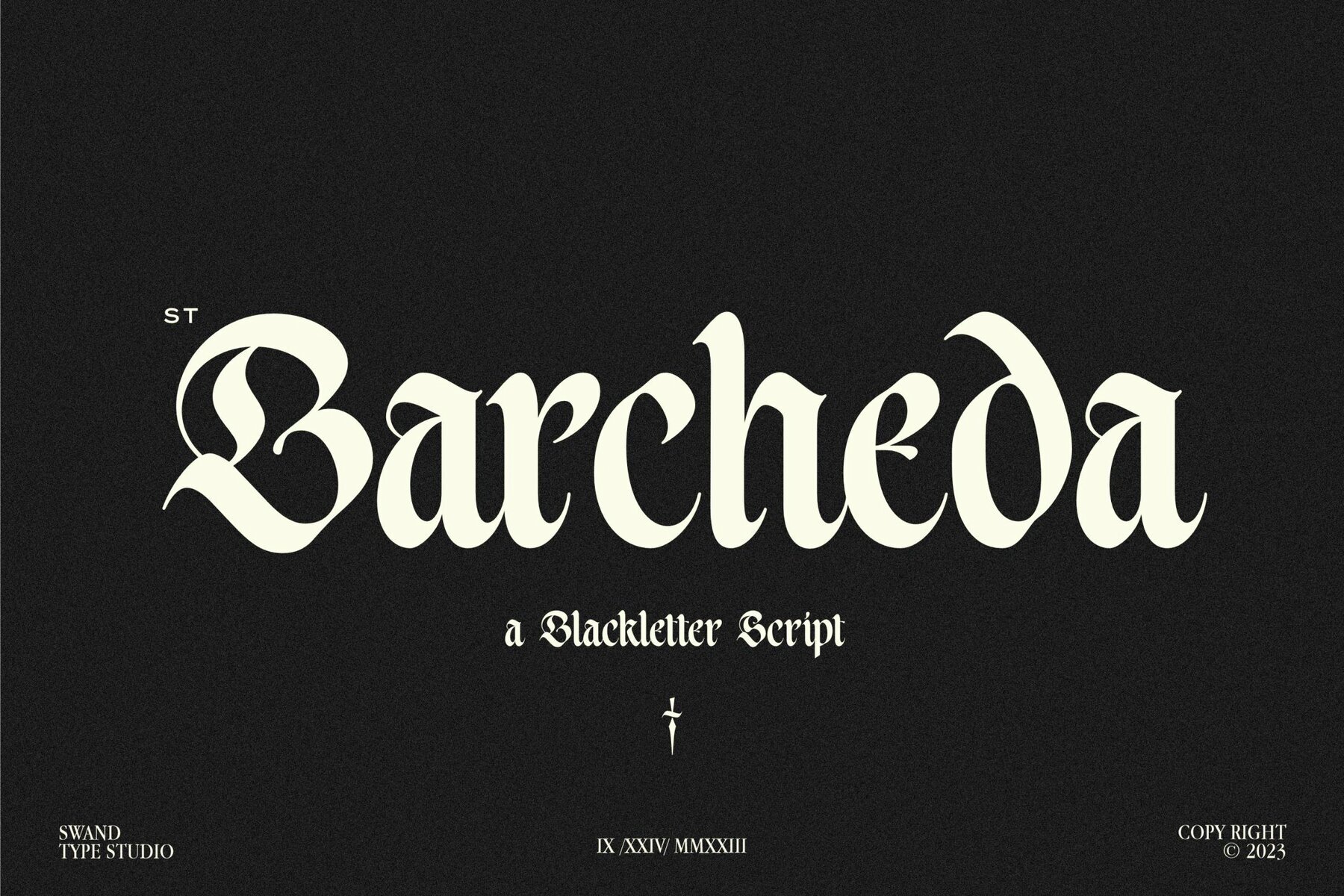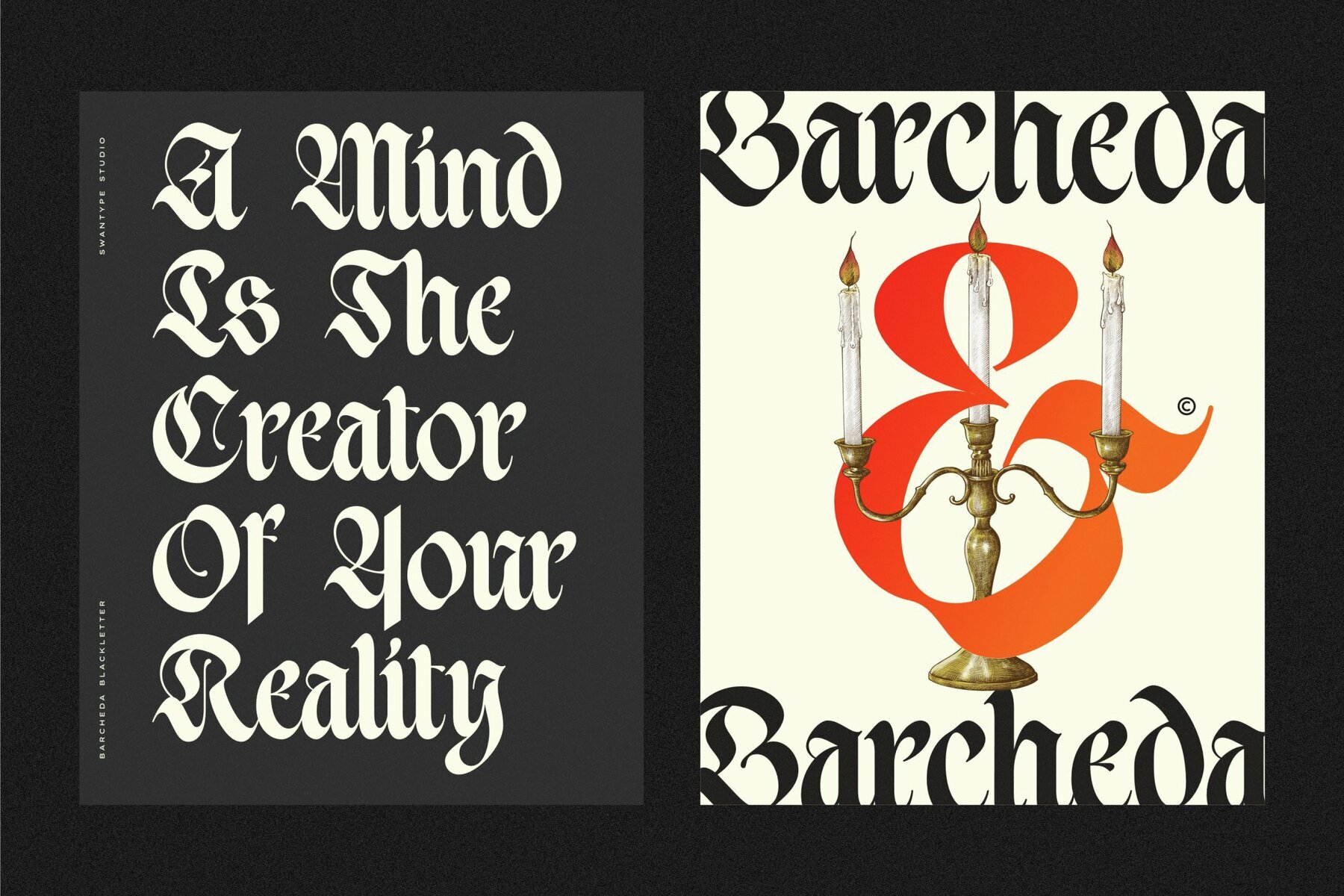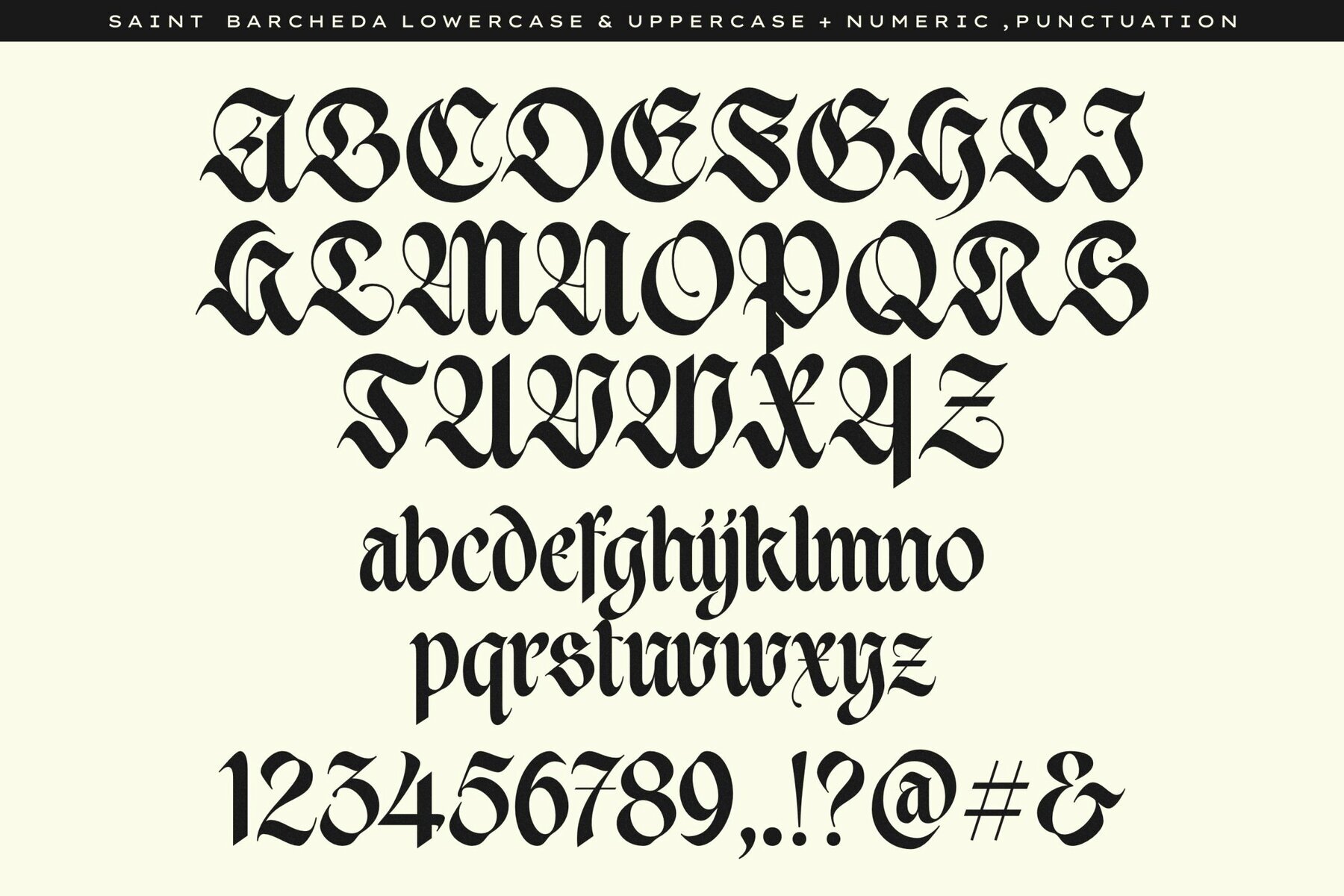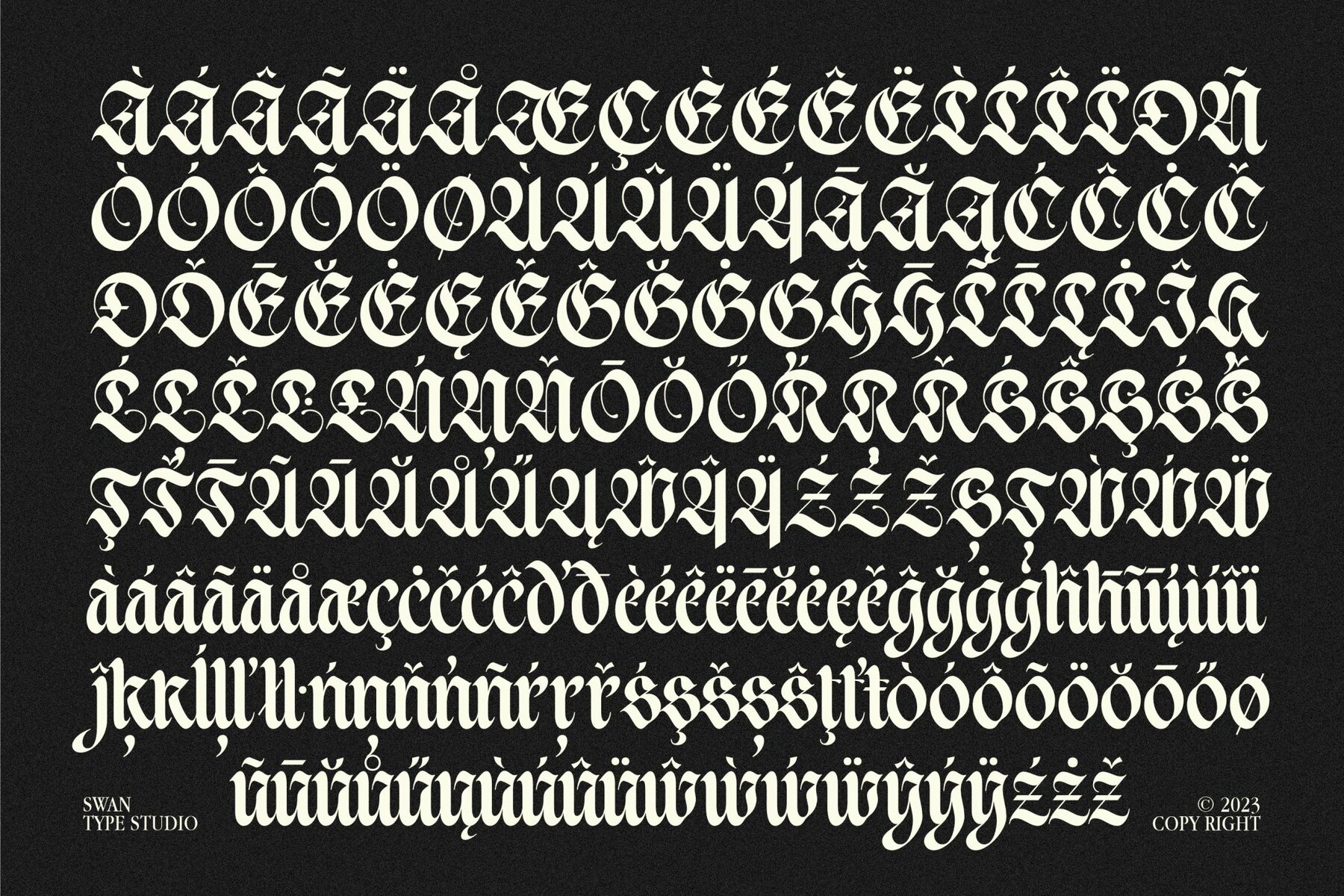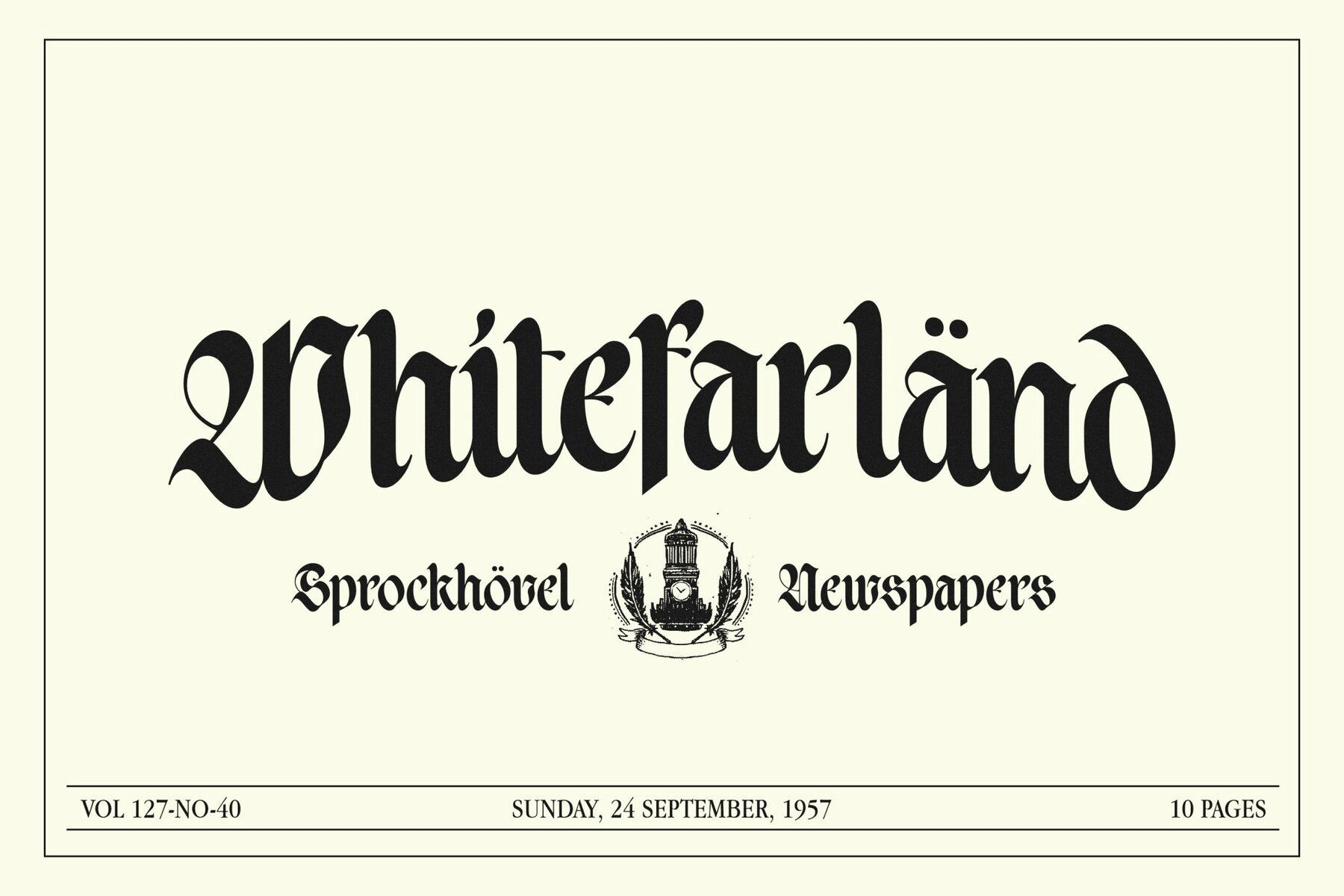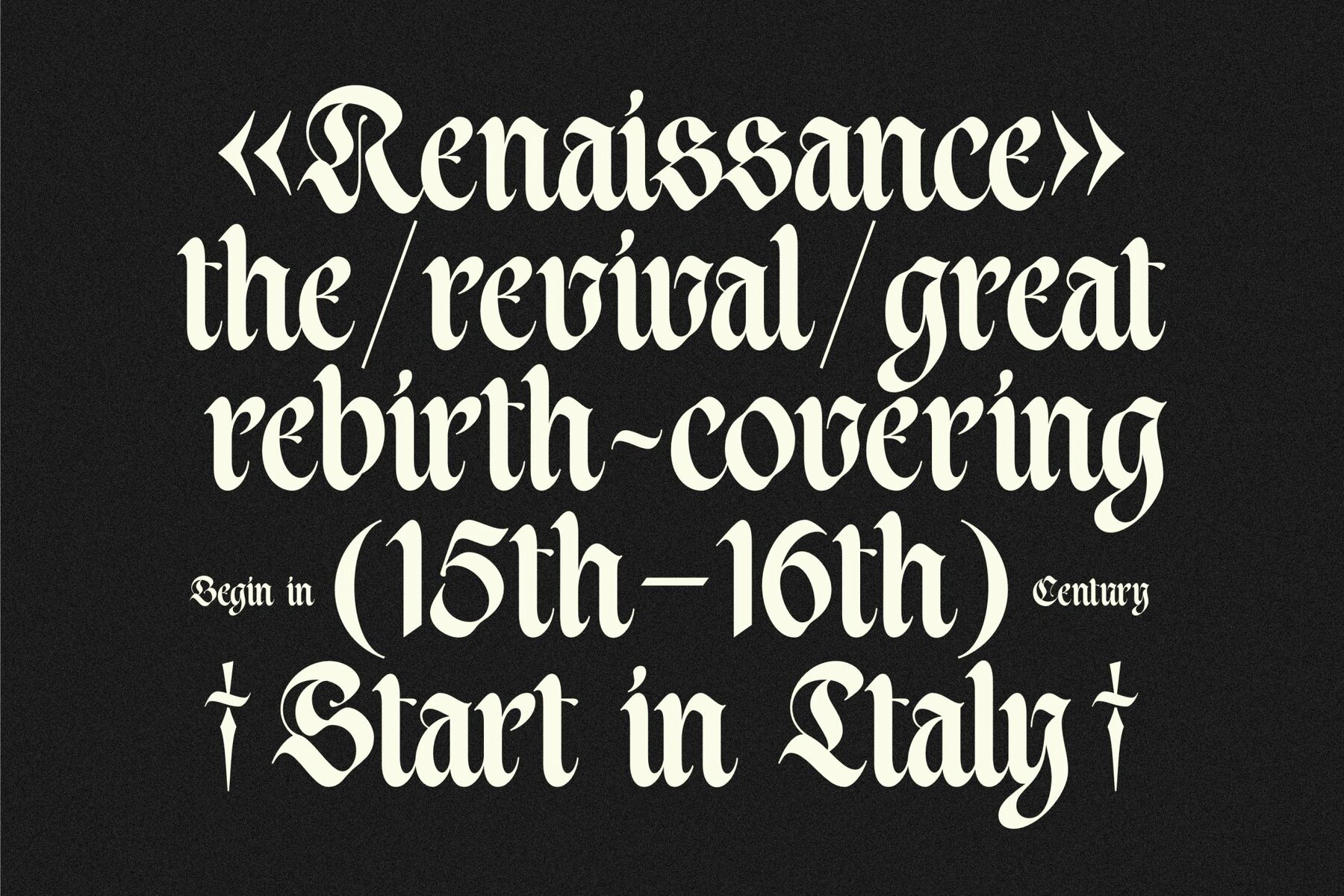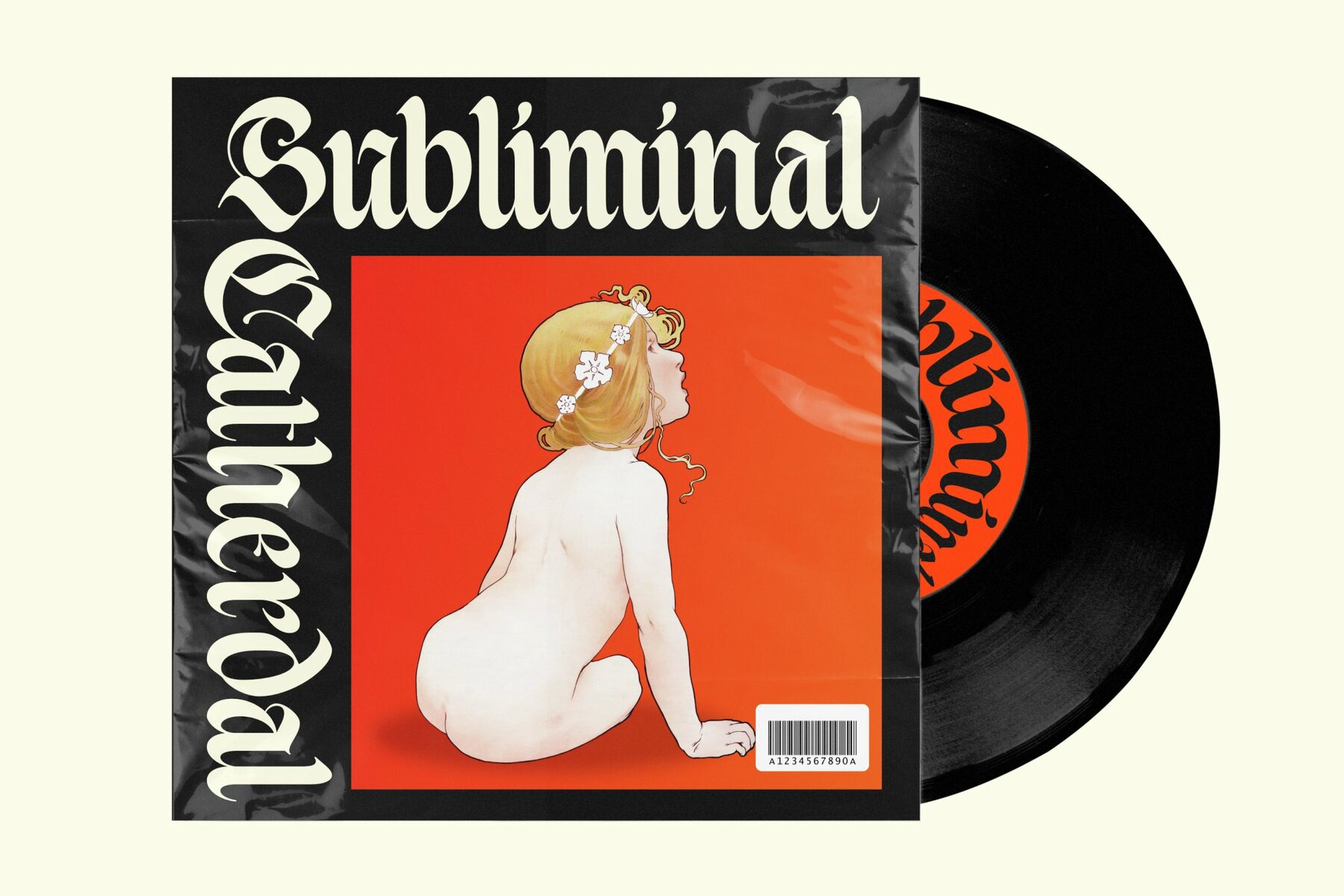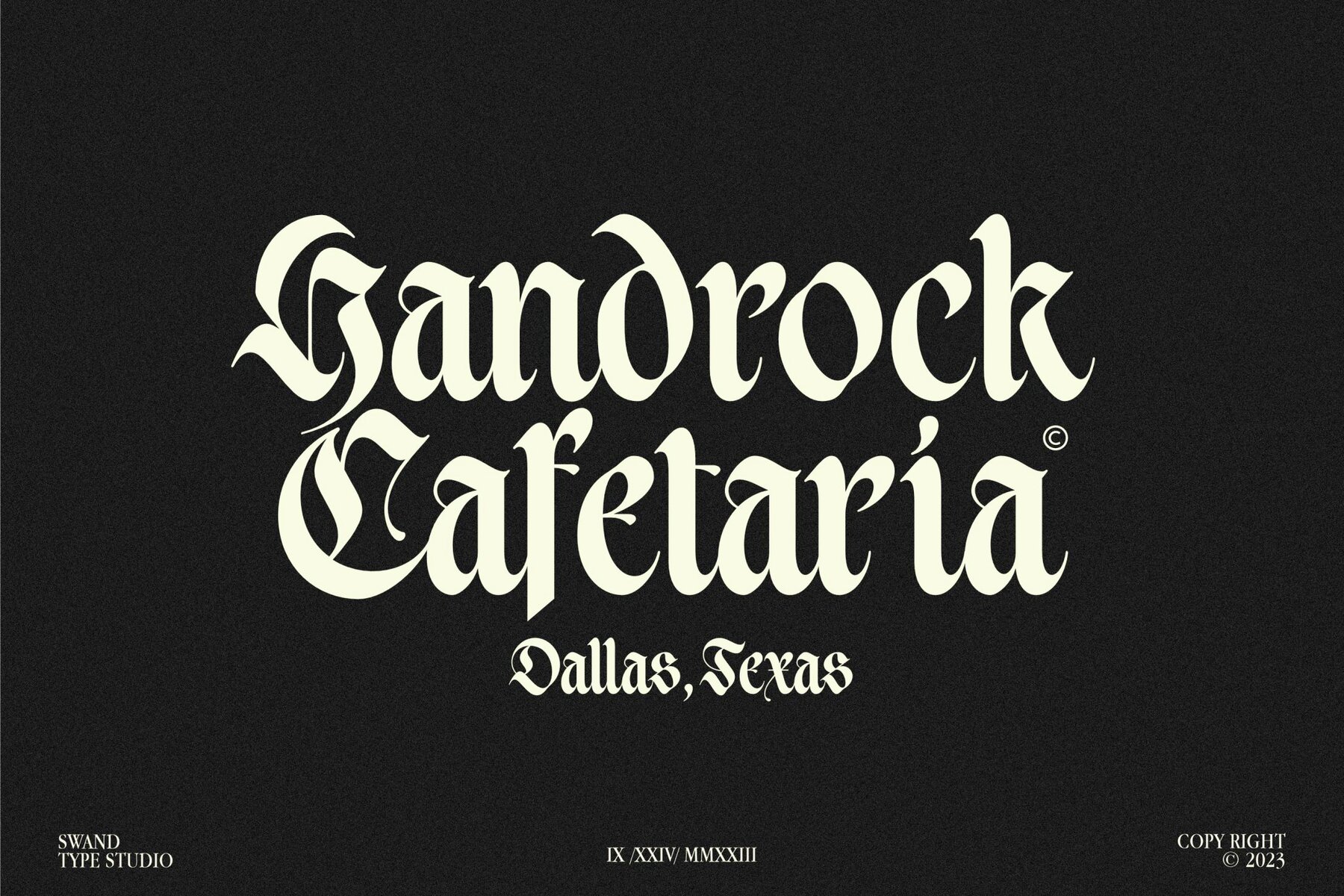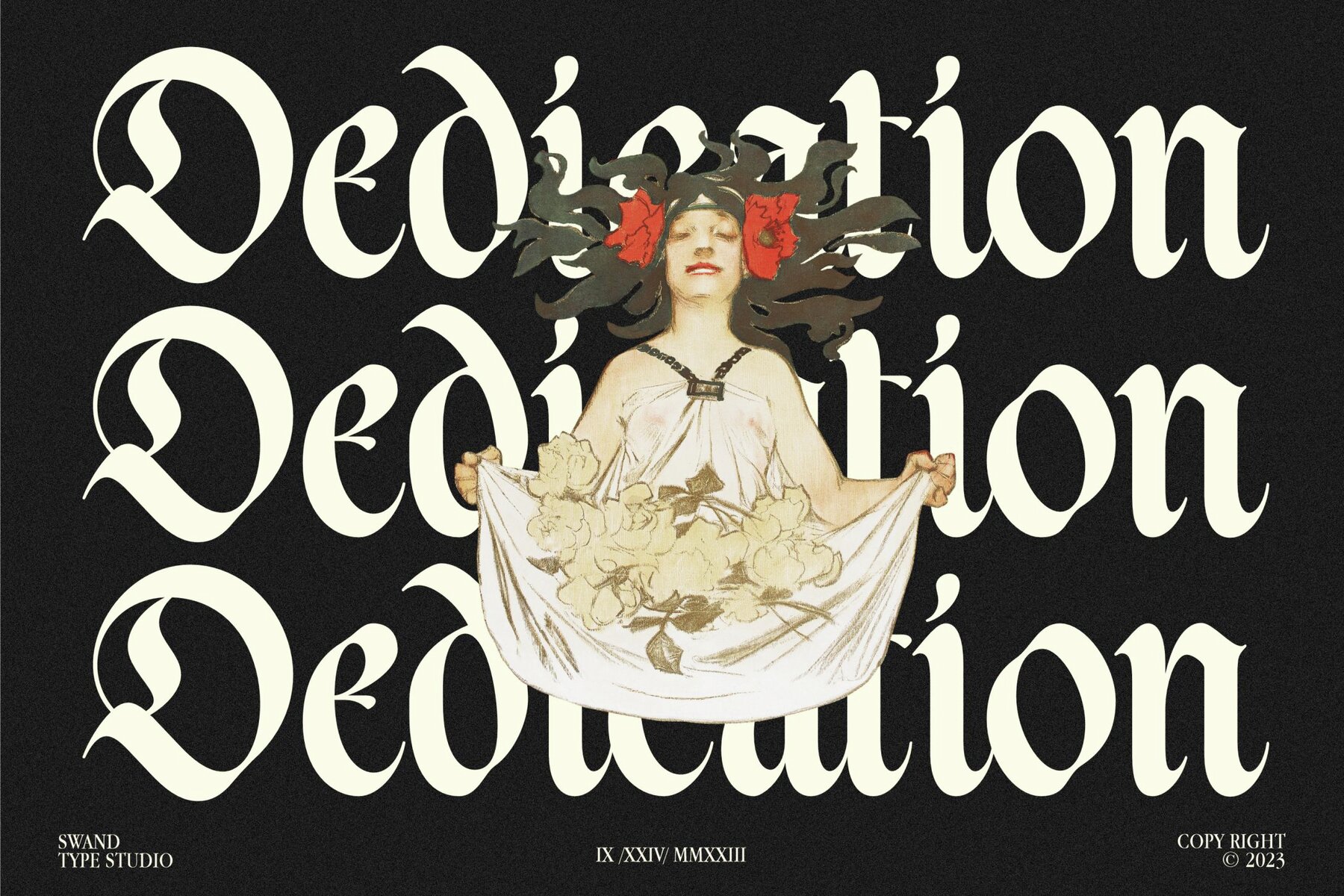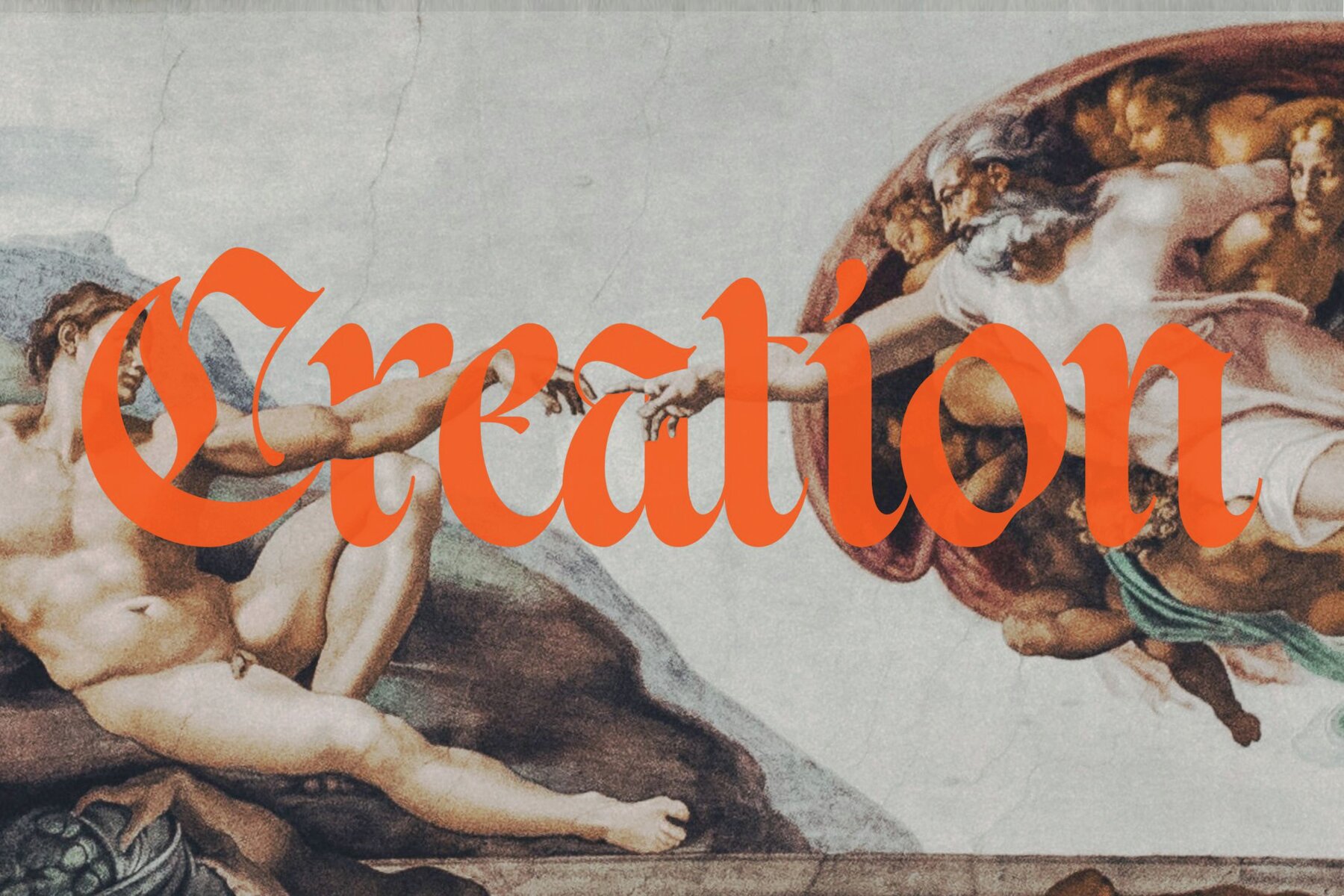
ST Barcheda Font
ST Barcheda is a blackletter script font designed to convey masculinity and assertiveness. Its tall letters project a dominant presence, making it an ideal choice for a variety of design projects. Applications:ST Barcheda: A Bold Blackletter Script